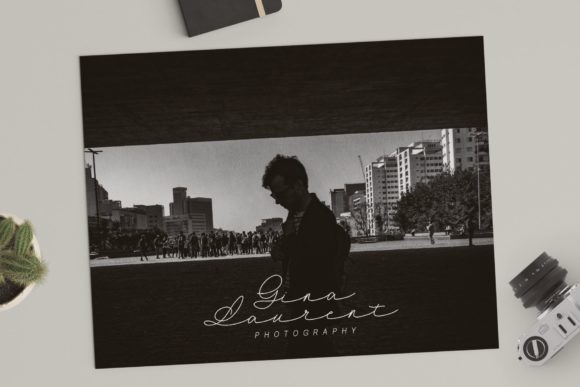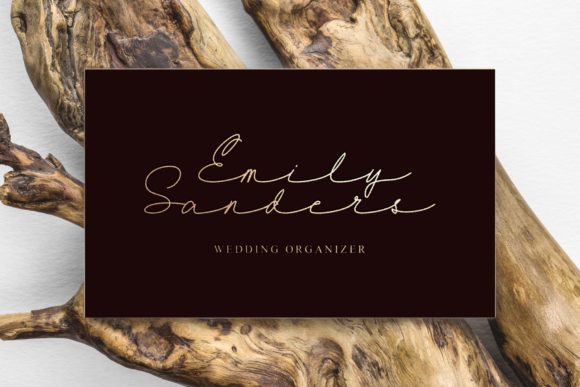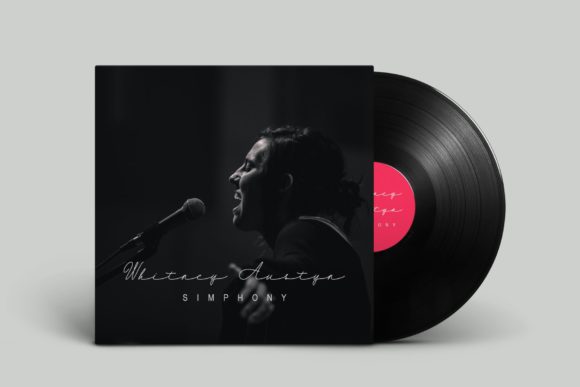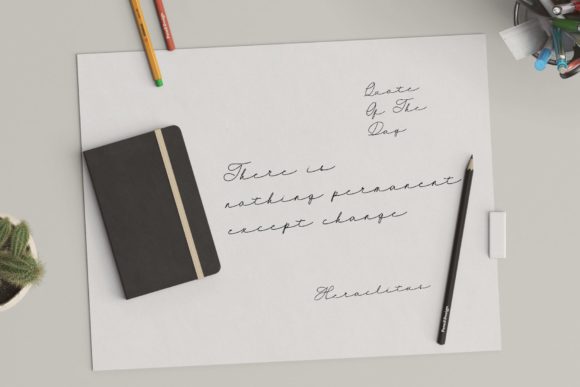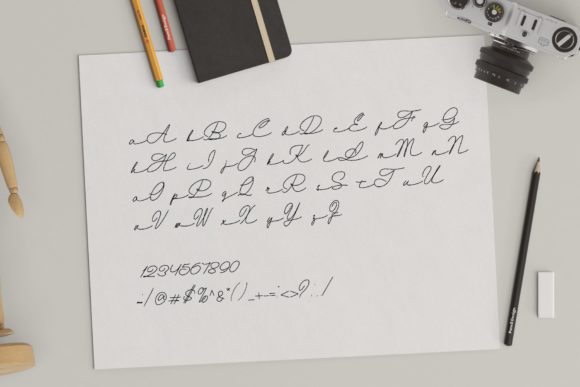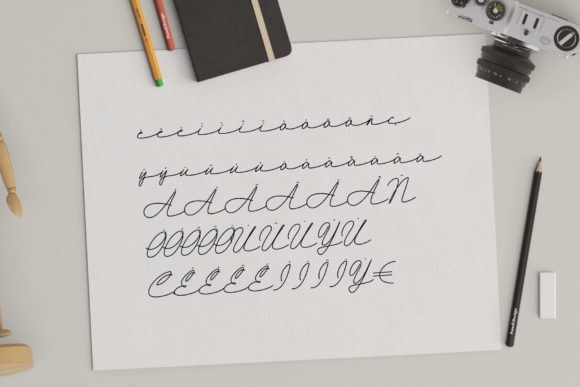
Introduction to Retta Font
Have you ever stared at a blank page, eager to bring your creative project to life, only to be met with a lack of inspiration? As designers, we’ve all been there. The blank slate can be intimidating, but what if you had the perfect tool to spark your creativity? That’s where the Retta Font comes in – a beautiful, handwritten typeface that exudes warmth and friendliness.
With its thin, flowing curves, the Retta Font is the perfect addition to any design project. Whether you’re working on a free download or a high-quality design piece, this font is sure to add a touch of elegance and sophistication. And the best part? It’s easy to use, with a transparent background that makes it simple to integrate into your design.
As a valuable design resource, the Retta Font is a must-have for any designer looking to add some personality to their work. So why not give it a try and see how it can elevate your creative project? With its high-quality design and versatile style, you won’t be disappointed.
Key Features of Retta Font
- Unique, hand-drawn style with a transparent background, allowing for seamless integration into various designs.
- Perfect for use in digital and print projects, including logos, branding materials, and advertising campaigns.
Honest Review: Retta Font
I recently had the chance to work with the Retta Font, and I must say it’s been a pleasant experience. The font is free to download, which is always a bonus for designers on a budget. One of the standout features of Retta Font is its ability to be used on a transparent background, making it perfect for creative projects that require a clean and minimalist look.
What works well about Retta Font is its high quality and versatility. The font is available in a range of weights and styles, making it suitable for a variety of design projects. The font also has a unique, modern aesthetic that sets it apart from other fonts in its class.
- ✨ Versatile and suitable for various design projects
- ✨ Unique, modern aesthetic
While Retta Font is a great design resource, there are a few limitations to be aware of. The font may not be suitable for projects that require a more traditional or serif font style.
Overall, I’m impressed with the Retta Font. It’s a great addition to any designer’s toolkit, and its high quality and versatility make it a great choice for creative projects. If you’re looking for a modern, minimalist font for your next design project, I’d definitely recommend giving Retta Font a try.
- ⚠️ May not be suitable for projects that require traditional or serif font styles
To get the most out of the Retta Font, use it in creative projects where its unique design can shine. Experiment with different font sizes, colors, and combinations to achieve a visually appealing effect.
The Retta Font is ideal for use in graphic design, digital art, and branding projects. Its high-quality design and transparent background make it perfect for creating professional-looking designs that stand out from the crowd.